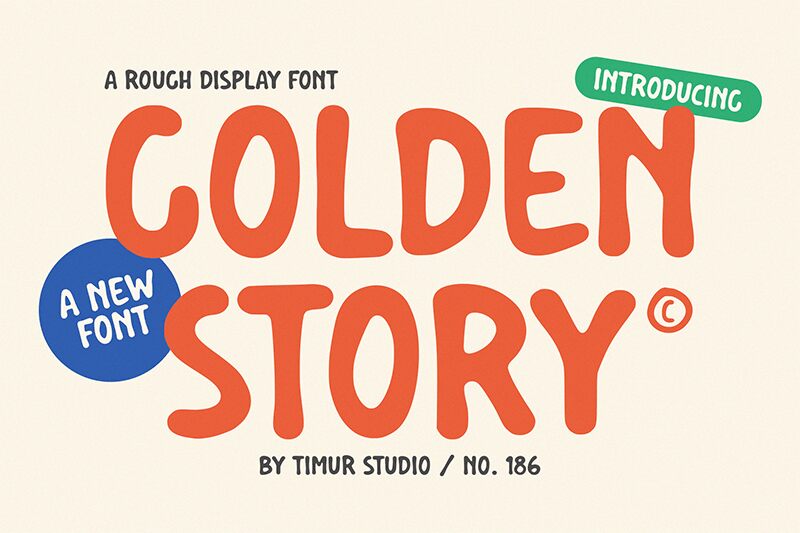
Golden Story font by Timur Type embodies an informal and contemporary display aesthetic. This free font features an engaging design with energetic and inviting qualities. Dynamic and modern, Golden Story comes with rounded and approachable shapes that contribute to a versatile experience.
Use this font in your promotional designs such as sports posters, package and label designs, digital games, video titles, and advertising campaigns. Also deploy it in creative typography, decorative headlines, or any branding or merchandise project.
Golden Story is a bold and dynamic rough display font introduced by Timurtype Studio. This font features rugged and textured letterforms that exude a sense of rawness and authenticity. The rough edges and distressed appearance give the Golden Story font a vintage and weathered aesthetic, making it perfect for adding character and grit to your designs, such as posters, album covers, and branding materials. Whether you're aiming for a retro and nostalgic feel or a contemporary and edgy look, the Golden Story font offers versatility and impact. Embrace the rough and rugged energy of this display font to infuse your designs with timeless appeal and storytelling.
Golden Story also supports multilingualism and features a full set of standard alphabet letters and punctuation.